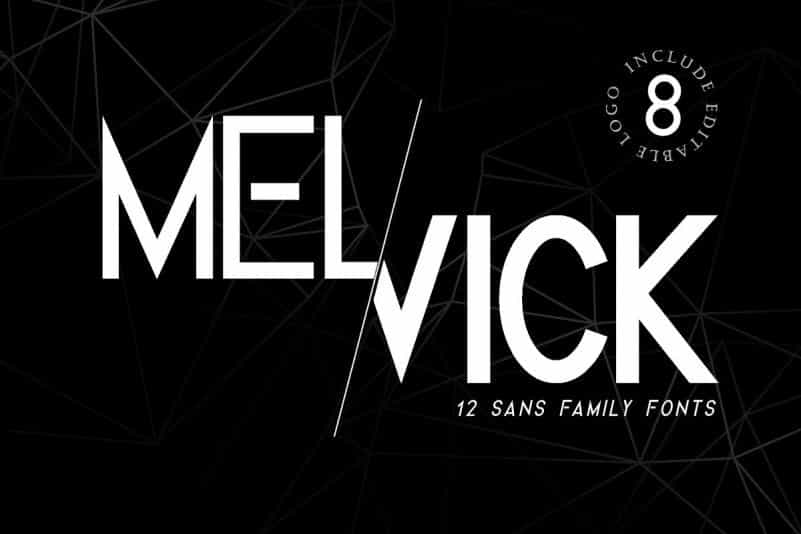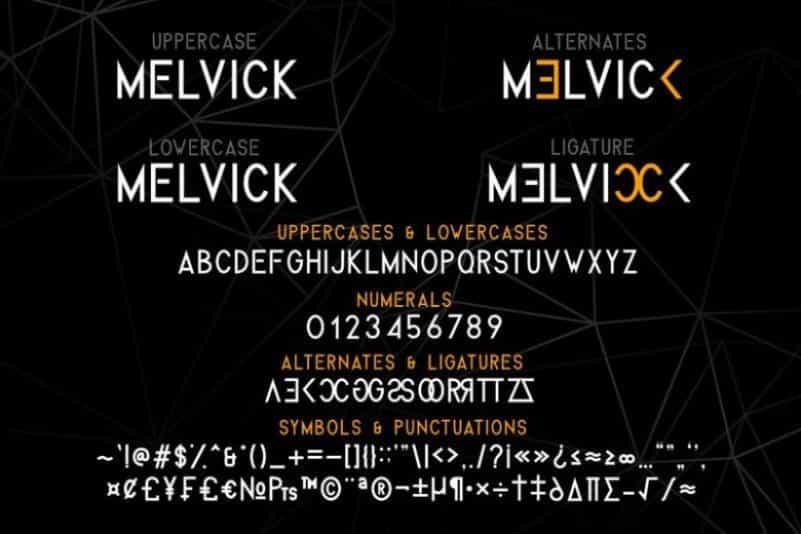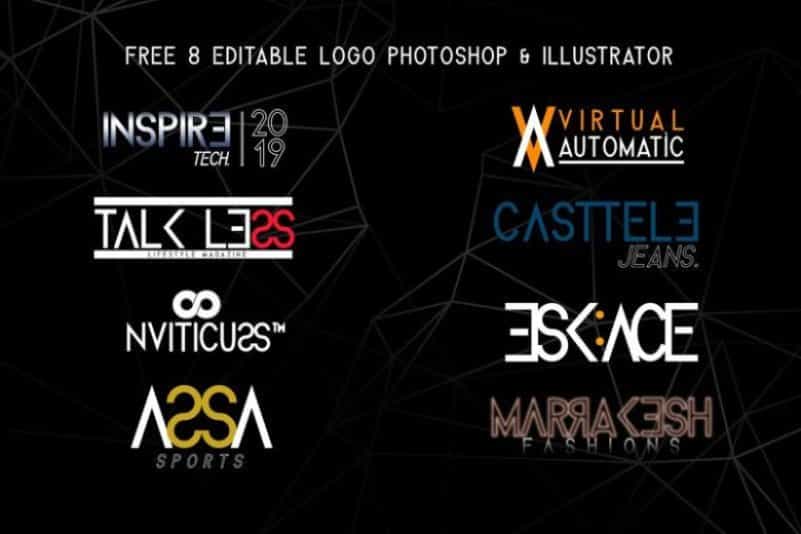
Introducing Melvick Font Family. This is a wonderful display font collection for you who want to have an easy, neat and strong characters. It is available in 12 fonts, 3 weights and all the characters are written in caps. The good thing about it is that you can use it for the display, logo, branding, magazine cover page or header, t-shirt design or printing and many more. Get paired up with each other fonts or let it be a single font. All looks great!